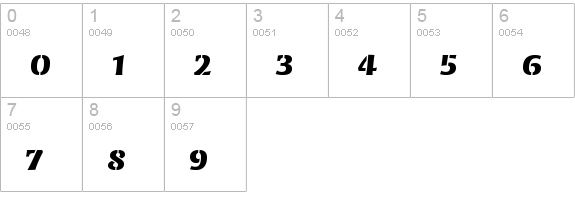
Conga Brava Stencil Std Bold is a strong, high-contrast variant in the Conga typeface family \xE2\x80\x94 well suited to headlines, attention-grabbing titles, and strong calls-to-action.
Conga Brava Stencil Std Bold is a striking and bold typeface that exudes confidence and strength. Its stencil design adds a touch of modernity and edge to any project, making it perfect for headlines, posters, and branding materials. The strong, clean lines of this font command attention and make a bold statement. Best of all, Conga Brava Stencil Std Bold is available for free download at FontsMarket.com, making it accessible to designers and creatives looking to add a touch of boldness to their projects without breaking the bank. Don't miss out on this versatile and eye-catching font that will set your designs apart from the rest.